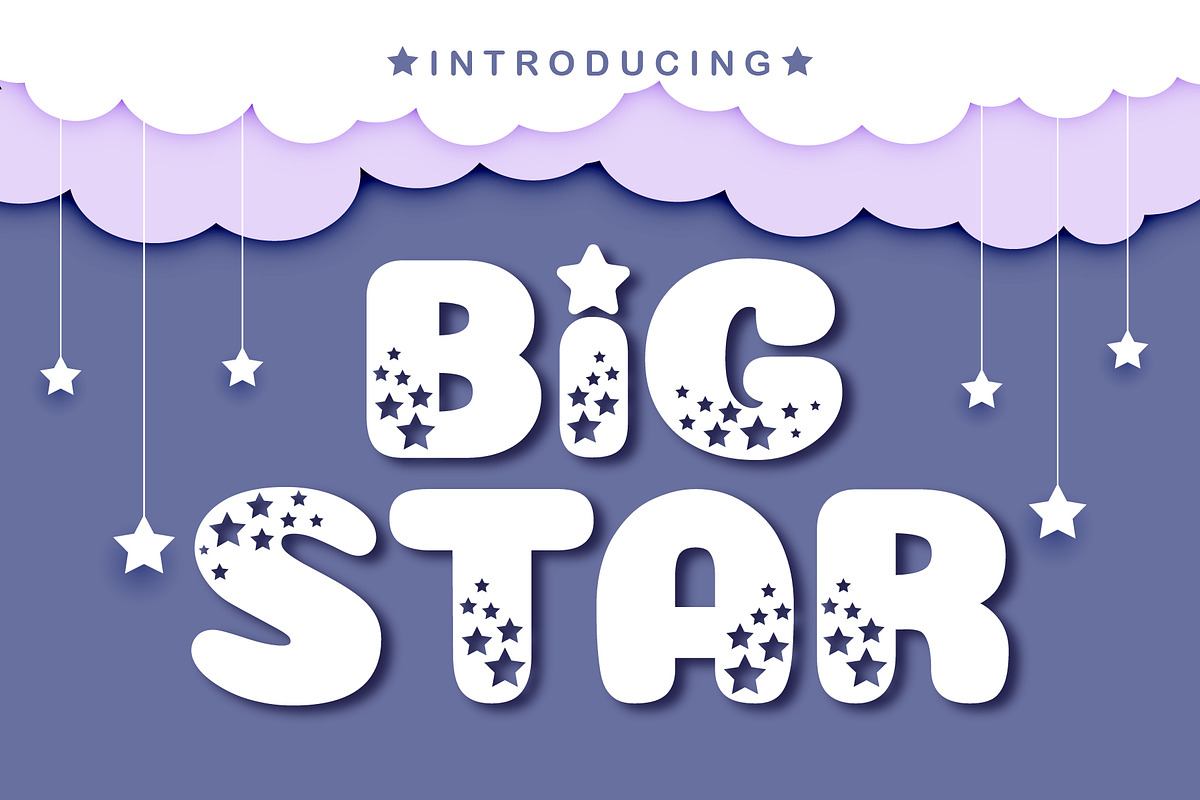
Big Star Fonts Free Download is a bold and eye-catching typeface designed to make your message shine bright. With strong lines, star-studded details, and a confident display style, this font is perfect for posters, headlines, event promotions, branding, signage, and anything that needs to grab attention with flair.
Whether you're designing for a concert, sports team, or high-energy marketing campaign, Big Star delivers big impact with a touch of retro Americana. Its standout personality makes it a great choice for display use where bold style is essential.